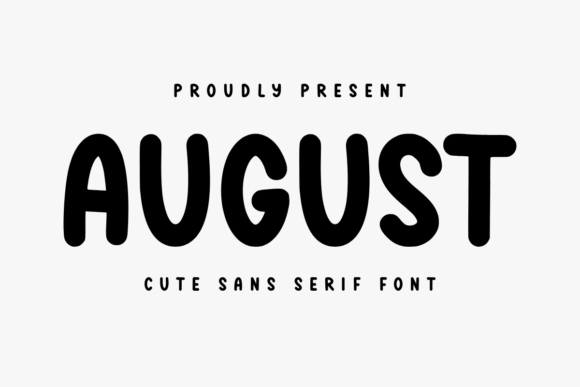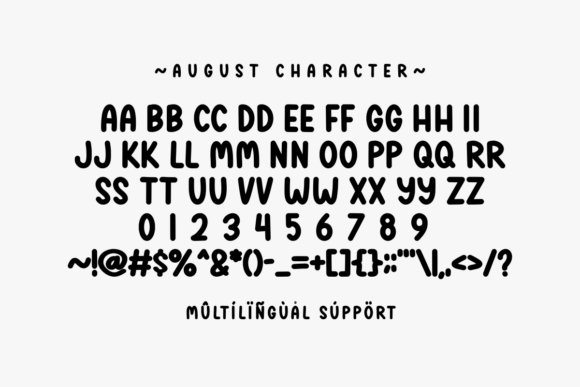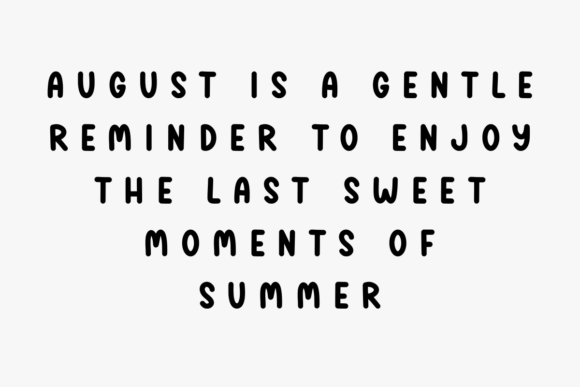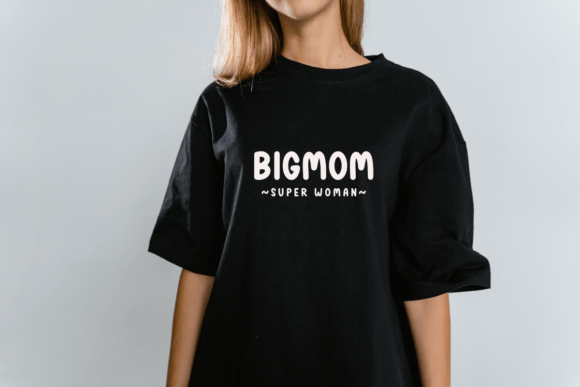
August Font: A Cute Sans Serif for Cricut & Craft Projects
About the August Font
Experience the unique personality of August Font, a font designed for impact. August is a cute sans serif font. That is suitable for perfecting your creative projects such as stickers, notes, planners, SVG quotes, t-shirts, wall art, Cricut, craft, embroidery, posters, cards, and many other ideas.
August’s playful yet clean aesthetic makes it ideal for branding projects targeting a young, modern audience, particularly those focused on crafts, lifestyle products, or children’s items. It excels in headlines, short text blocks on posters or packaging, and social media graphics. However, its lightweight nature makes it less suitable for body text or UI elements requiring high readability at smaller sizes.
Pairing August with a classic serif like Garamond or a geometric sans-serif like Futura creates a sophisticated contrast. For a more playful feel, consider pairing it with a handwritten script like Pacifico, while a bolder sans-serif like Montserrat can provide a robust counterpoint, depending on the desired level of energy.
The overall personality of August is friendly and approachable, leaning towards a youthful and slightly quirky vibe. This makes it a versatile choice for projects that require a balance of charm and clarity.